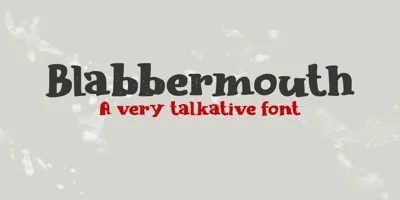
Blabbermouth Font
Blabbermouth Font is perfect for comedy club branding, talk show graphics, podcast cover designs, entertainment blog headers, social media influencer content, satirical publication layouts, humor-based app interfaces, chatterbox toy packaging, conversational brand messaging, and lively communication platform designs.
What makes Blabbermouth Font so exciting is its talkative personality that perfectly captures the energetic spirit of non-stop conversation and animated communication. This expressive display typeface features dynamic letterforms, chatty styling, and conversational energy that creates an immediate sense of lively dialogue and engaging interaction, making it the ideal choice for brands that want to communicate enthusiasm, social connection, and the infectious energy of great conversation.
The Blabbermouth Font family includes regular, bold, italic, and condensed versions, along with speech bubble symbols, conversation icons, chatty motifs, and communicative decorative elements. Each style maintains the font's signature talkative character while providing designers with versatile options for creating genuinely engaging communications that capture the excitement of animated discussion and social interaction.
Whether you're designing for entertainment media companies or social communication platforms, Blabbermouth Font delivers the conversational energy needed to communicate engaging personality and interactive appeal. The font's expressively crafted letterforms ensure excellent readability while maintaining its distinctive chatty character that resonates with audiences who love lively conversation, humor, and social connection.
This conversationally designed typeface works brilliantly across both entertaining print materials and dynamic digital communication platforms. The Blabbermouth Font maintains its talkative appeal whether displayed on comedy posters or interactive chat interfaces, making it essential for brands that celebrate the joy of communication and the power of engaging conversation.